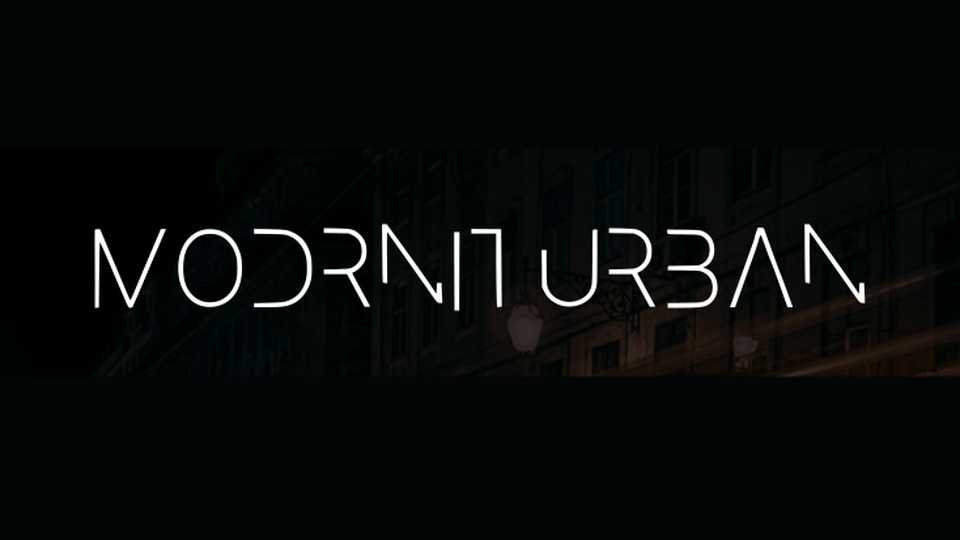
Download Modrnt Urban font, a clean and minimal display typeface with a futuristic look. Modrnt_Urban is perfect for for headlines, logos, posters, everything related to technology, space, sci-fi.
Designer: Edson Silva